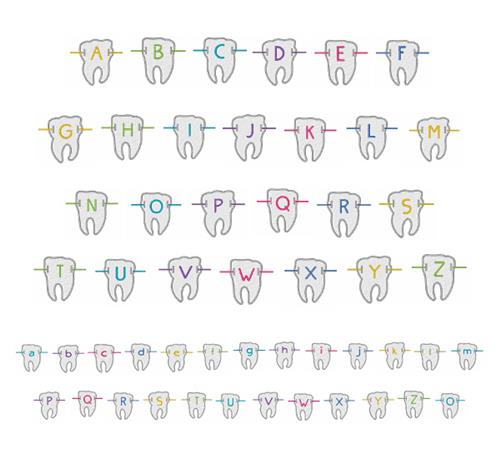
Embroidery Patterns is happy to present Braces Font Embroidery Font - Outline Decorative Alphabet - Home Format - PES, DST & 11 formats machine embroidery font which has Playful outline decorative machine embroidery font suitable for dental-themed projects, ideal for items like apparel or tote bags. Available in PES, DST, and 11 additional formats. included. If you would like to view more embroidery fonts and alphabets please search our embroidery fonts page.